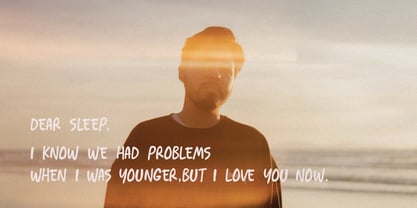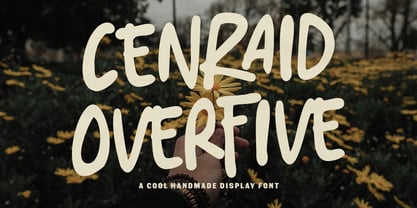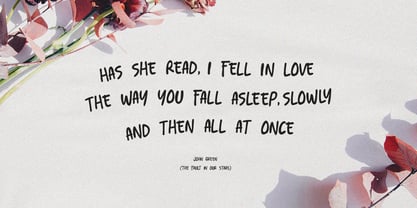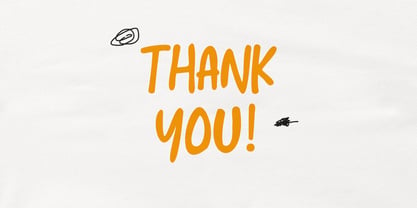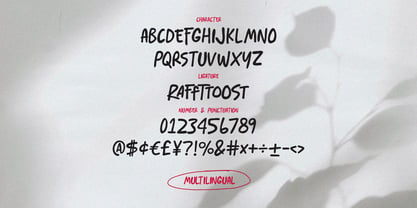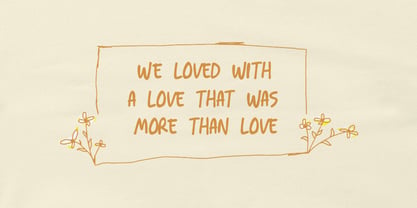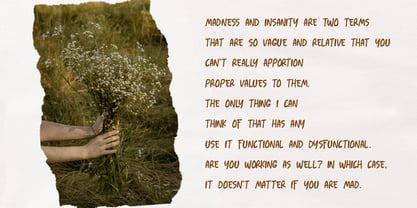
MC Cenraid Overfive
von Maulana Creative
Die Schriftfamilie MC Cenraid Overfive wurde von Gilang Maulana entworfen und von Maulana Creative veröffentlicht. MC Cenraid Overfive enthält 1 Stile. Mehr über diese Familie
Cenraid Overfive is a quirky, bold, and delightfully imperfect display font that perfectly captures the spirit of authentic, casual, and fun design. Born from a love for the organic feel of hand lettering, this font features thick, bouncy strokes and a relaxed baseline that brings an immediate sense of warmth and personality to any project. Why Cenraid Overfive is your next go to font: - Authentic Handmade Vibe: Break away from rigid, sterile fonts. Cenraid Overfive unique character adds a human, relatable, and genuinely cool touch to your work. - High Impact Display: Its thick, rounded letters make it stand out instantly, making it perfect for headlines, titles, and large scale applications. - Versatile & Fun: Whether you're designing for a brand, a playful childrens, a dynamic social media campaign, or impactful product, this font delivers a fresh, energetic look. - Full Feature Set: Includes a complete set of Uppercase Characters, Numbers, Punctuation, and powerful Ligatures to ensure a seamless and stylish flow between letters. - Multilingual Support: Reach a global audience with extensive multilingual characters, ensuring your message is understood everywhere.
Designer: Gilang Maulana
Aktuelle Foundry: Maulana Creative